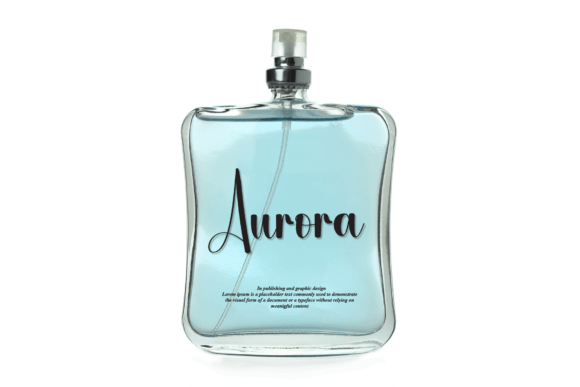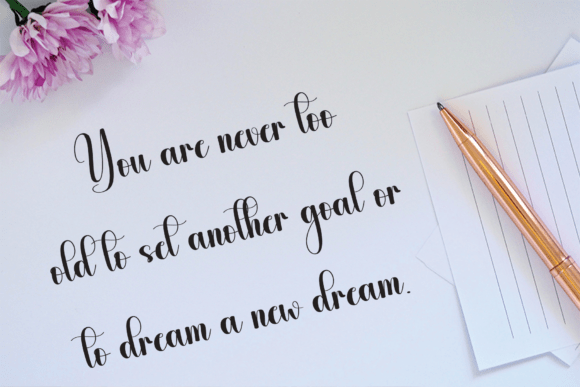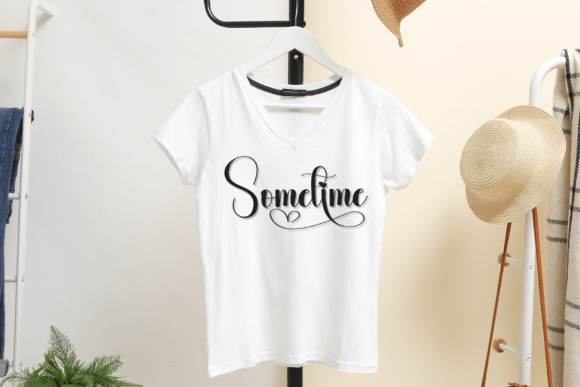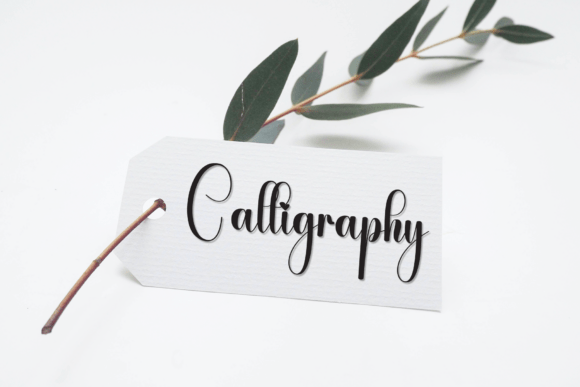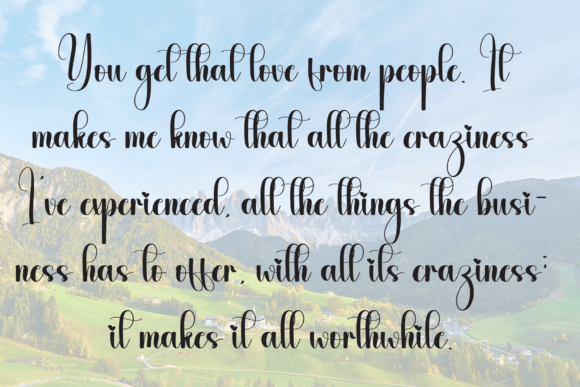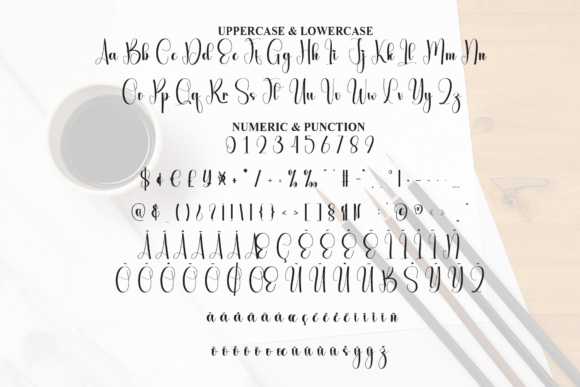
Introducing Balpoint Minimalist Font: The Embodiment of Sweetness and Warmth
Are you on the hunt for a font that exudes warmth, sweetness, and a dash of playfulness? Look no further than the Balpoint Minimalist Font, a charming, handcrafted display font that’s sure to capture the hearts of designers and crafters alike. This delightful typeface is the perfect addition to your aesthetic arsenal, lending an amusing and friendly vibe to any creation.
A Font that Speaks to the Heart
Balpoint Minimalist Font is more than just a collection of letters – it’s a typographic treat that brings joy and whimsy to any design. Its distinctively cuddly and fun character helps turn simple words into affectionate narratives, making it the ideal choice for crafting heartfelt wedding invitations, engaging cards, and other designs that require a personal touch.
What Makes Balpoint Minimalist Font So Special?
- Handcrafted with love: Each letter has been carefully crafted to ensure a unique, human touch that’s impossible to replicate with machine-generated fonts.
- Winsome and playful: Balpoint Minimalist Font is designed to bring a smile to the face, making it perfect for designs that require a dash of fun and personality.
- Versatile: Whether you’re creating wedding invitations, greeting cards, or social media graphics, this font adapts seamlessly to any design style.
- Easy to read: Despite its playful nature, Balpoint Minimalist Font remains clear and legible, ensuring your message is conveyed with ease.
Use Cases for Balpoint Minimalist Font
So, where can you use this delightful font? The possibilities are endless! Here are a few ideas to get you started:
- Wedding invitations: Add a touch of romance and whimsy to your wedding stationery with Balpoint Minimalist Font.
- Greeting cards: Create engaging and heartfelt cards for birthdays, anniversaries, and other special occasions.
- Social media graphics: Bring a dash of fun and personality to your social media posts with this playful font.
- Branding and packaging: Use Balpoint Minimalist Font to create a unique and memorable brand identity.
Tips for Getting the Most Out of Balpoint Minimalist Font
To make the most of this charming font, here are a few tips to keep in mind:
- Experiment with colors: Balpoint Minimalist Font looks great in a variety of colors, so don’t be afraid to get creative and try out different hues.
- Mix and match: Combine Balpoint Minimalist Font with other fonts to create a unique and visually appealing typography.
- Play with sizes: Use different font sizes to add emphasis and create visual hierarchy in your designs.
In conclusion, Balpoint Minimalist Font is a delightful addition to any designer’s toolkit. Its unique blend of sweetness, warmth, and playfulness makes it the perfect choice for crafting heartfelt designs that capture the imagination. Whether you’re a seasoned designer or a crafty DIY enthusiast, this charming font is sure to bring a smile to your face and inspire your creativity.
Get Ready to Fall in Love with Balpoint Minimalist Font